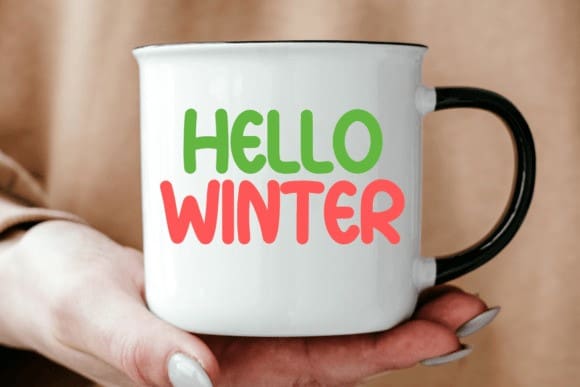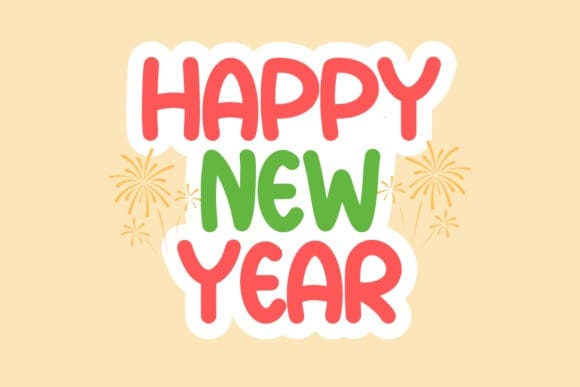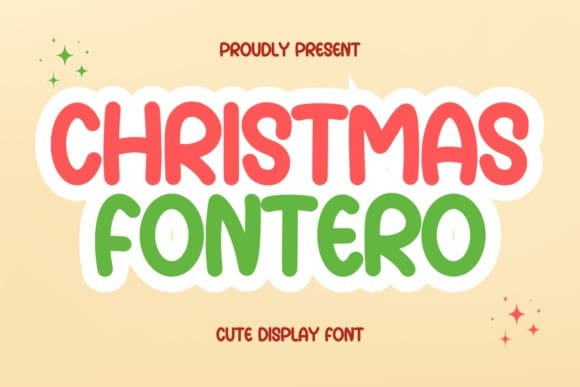
Christmas Fontero Font
Christmas Fontero Font is a handwritten Font with a unique and cute style based on bold and minimalist shapes touched in a modern and elegant style. This font is very suitable for various creative needs such as printing, books, titles, headlines, photography, decoration, branding, logos, and others.